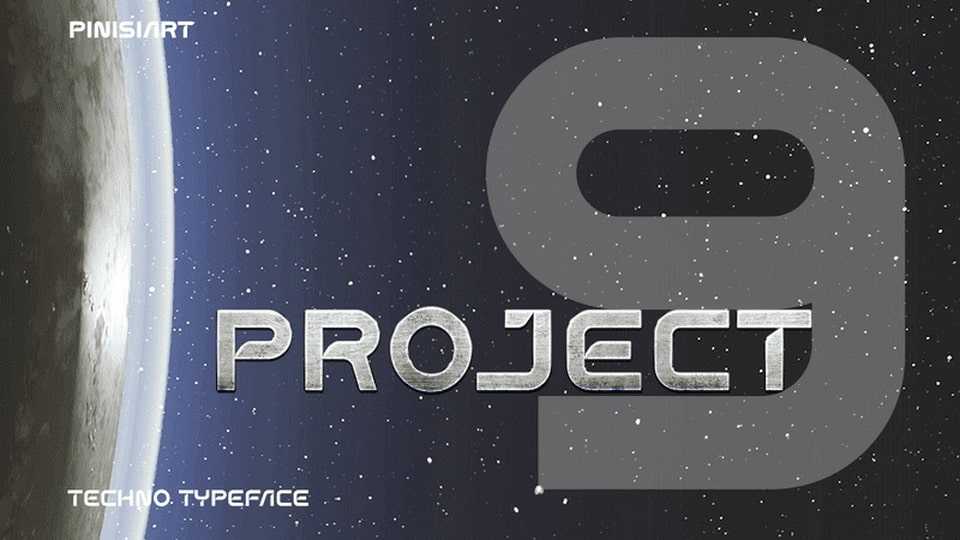
Download Project 9 font, a techno display typeface. Science, numbers and future technology is coming. And Project 9 will be a go-to font for this kind of project.